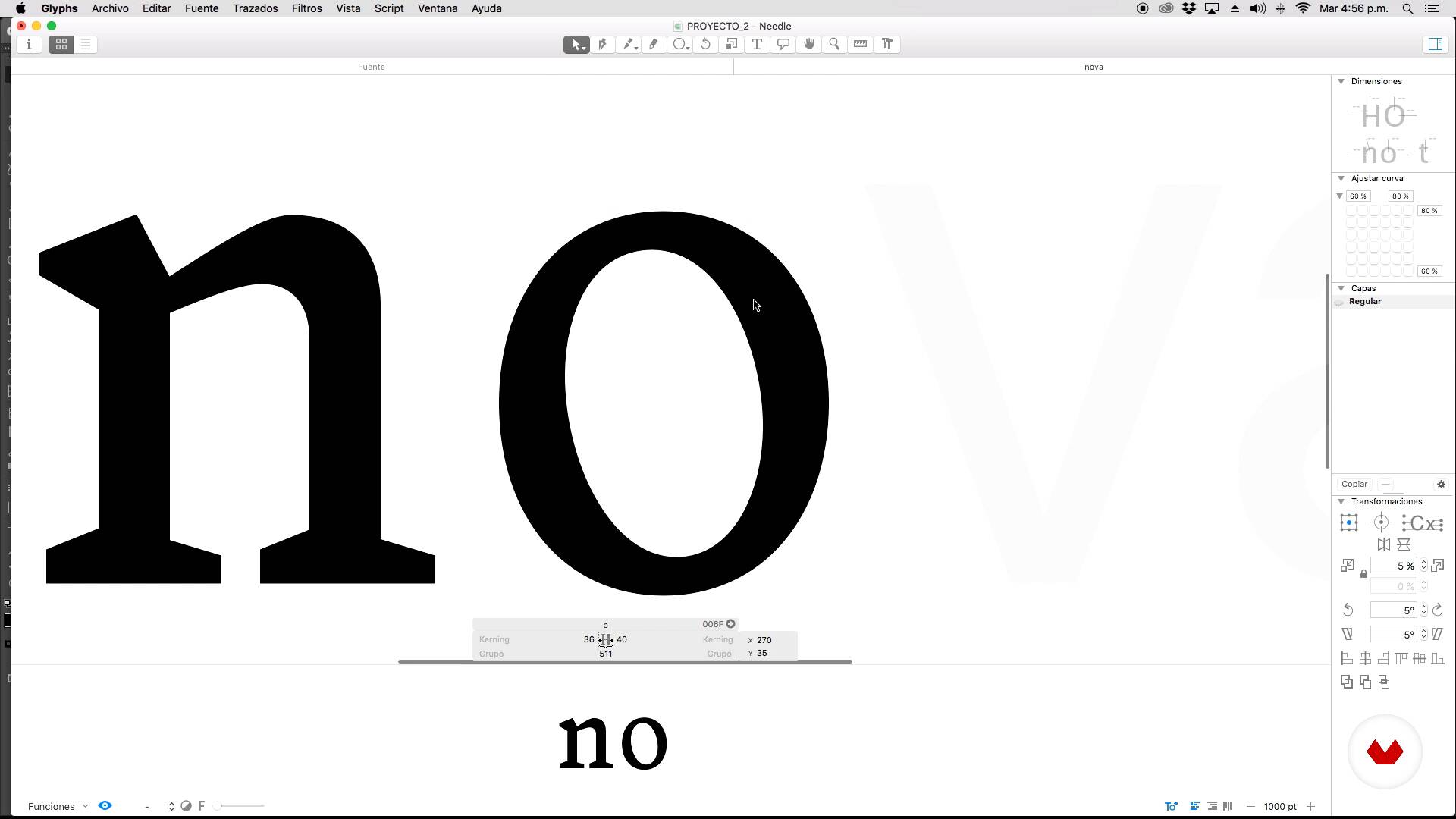
Digital Reinterpretation of Classic Typography
Drawing with Glyphs II
A course by Oscar Guerrero Cañizares , Graphic Designer and Typography Specialist
About the video: Drawing with Glyphs II
In this video lesson Oscar Guerrero Cañizares addresses the topic: Drawing with Glyphs II, which is part of the Domestika online course: Digital Reinterpretation of Classic Typography. Learn the typographic revival method to give a new digital life to ancient fonts.
“Let's make the letter O. drag the image, we give it size. We block it and work again. As happened in Illustrator, we use the geometric shapes of the program. Ideally it would be to adjust the width to the requirements in the analog drawing. As in Illustrator, the shape is very oval, so I set some widths on the outside. It's much more interesting to do this because it will be more accurate. As each movement of the keyboard is a unit, we can go marking in a more precise way the increments made and will be more measurable, more suitable. So, if we mark only the key on the right, will mark us o...”